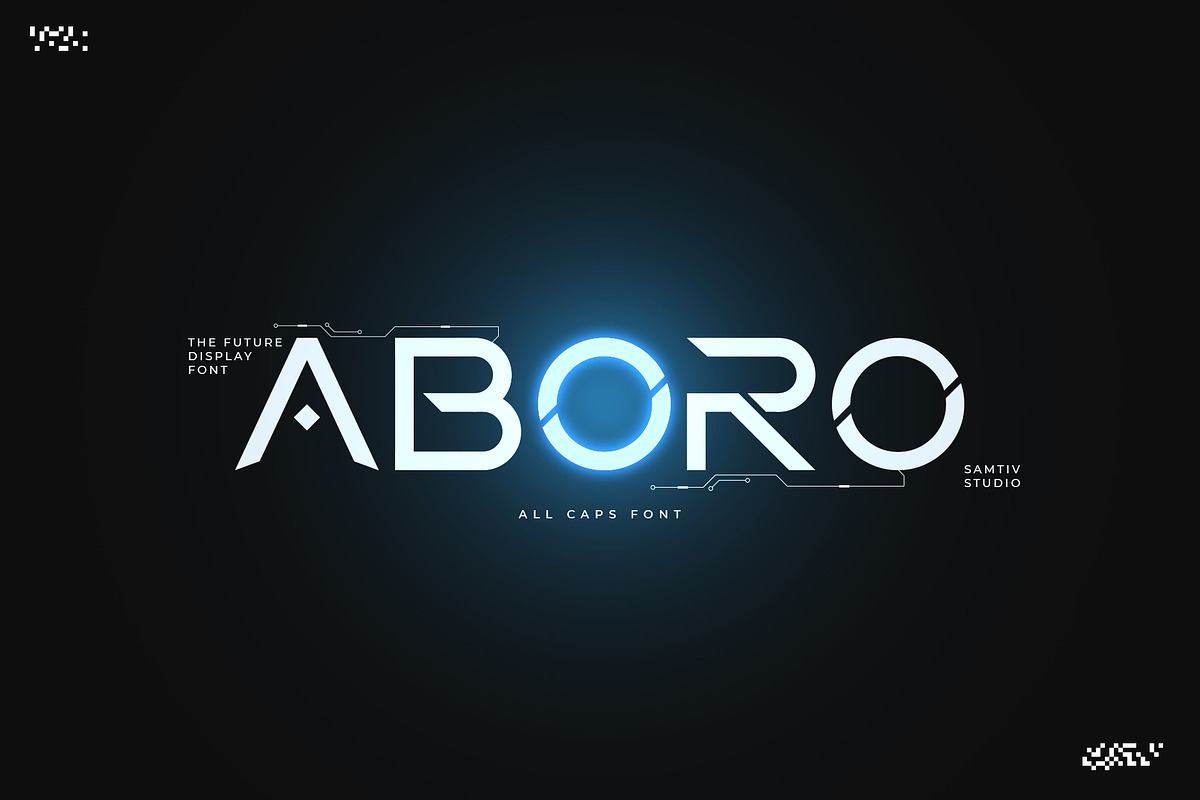
Aboro - Futuristic Science Font Free Download
You must purchase this font for commercial use. However, you can download Aboro - Futuristic Science Font Free Download for testing purposes. Aboro is a sleek, modern font designed with futuristic and science-inspired elements. With its sharp lines and geometric structure, this font is perfect for tech projects, sci-fi designs, space-themed graphics, branding, and more.
The clean and edgy design of Aboro adds a contemporary, high-tech feel to your typography, making it ideal for projects that require a futuristic and innovative aesthetic. Whether you're working on a tech startup logo, a sci-fi book cover, or a cutting-edge marketing campaign, this font will bring a bold, modern look to your designs.